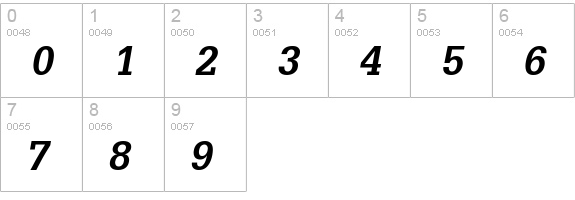
Installation SSi Bold Italic is a strong, high-contrast, italic variant in the Installation typeface family \xE2\x80\x94 well suited to headlines, attention-grabbing titles, and strong calls-to-action.
Installation SSi Bold Italic font is a stunning display of elegance and sophistication. With its bold yet delicate strokes and unique italic design, this font is perfect for adding a touch of modernity to any project. Whether you are designing a logo, creating eye-catching headlines, or enhancing your website's typography, Installation SSi Bold Italic font will surely make a lasting impression. Its sleek and stylish appearance exudes confidence and creativity, making it an ideal choice for various creative endeavors. What sets Installation SSi Bold Italic font apart is not just its exceptional design, but also the fact that it is freely available to download at FontsMarket.com. This means that you can easily access this remarkable font without any cost, making it a fantastic opportunity for designers, artists, and enthusiasts to elevate their work without breaking the bank. The versatility of Installation SSi Bold Italic font allows it to be used in various mediums, from print to digital. Its bold and italic nature adds a sense of depth and emphasis, making it perfect for headlines, posters, invitations, and other attention-grabbing designs. Its clean and legible appearance also ensures readability, even in smaller sizes. Whether you are a professional designer looking to enhance your portfolio or an individual seeking to add a touch of elegance to personal projects, Installation SSi Bold Italic font is a must-have. Its free availability on FontsMarket.com makes it easily accessible to everyone who is looking for a high-quality font that stands out from the crowd. Don't miss the opportunity to download Installation SSi Bold Italic font for free at FontsMarket.com. Elevate your designs, captivate your audience, and make a lasting impression with this stunning font that combines boldness, elegance, and creativity.